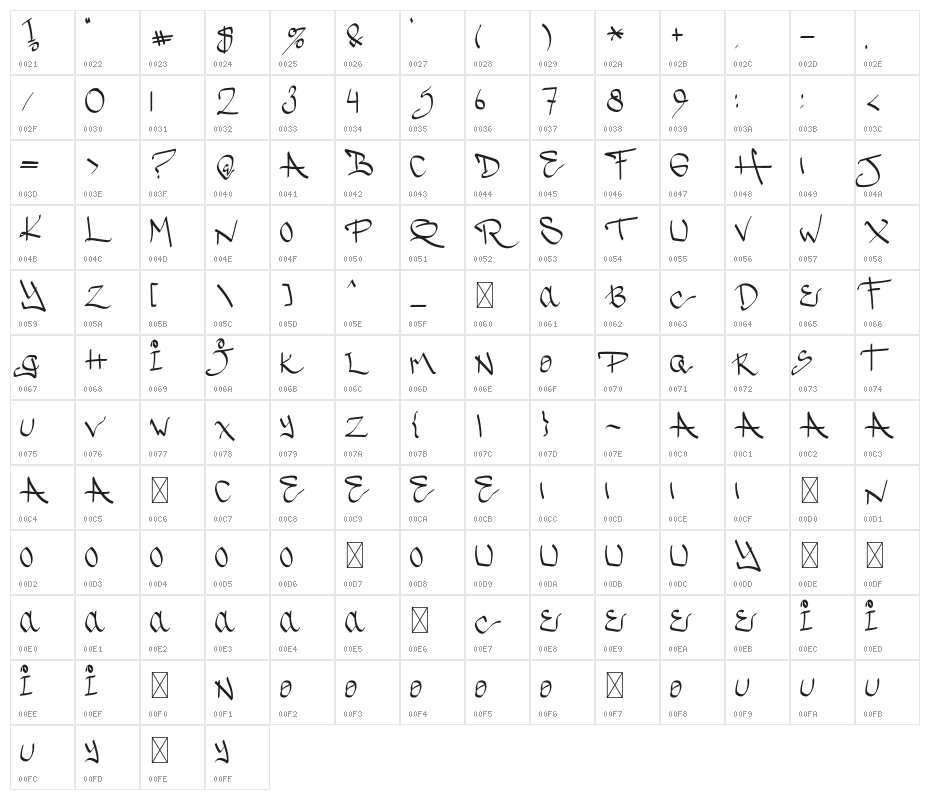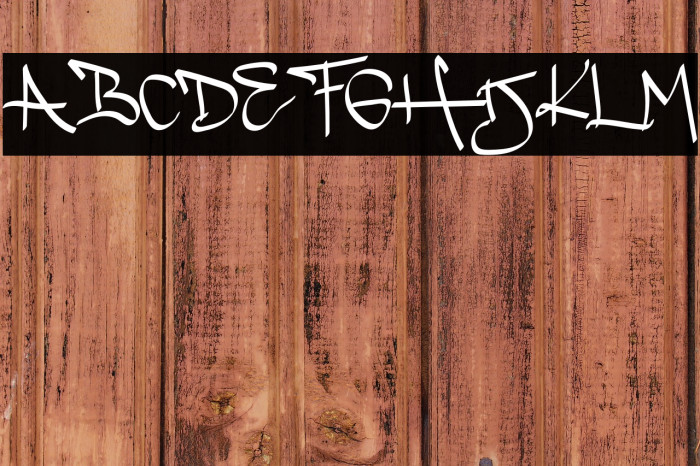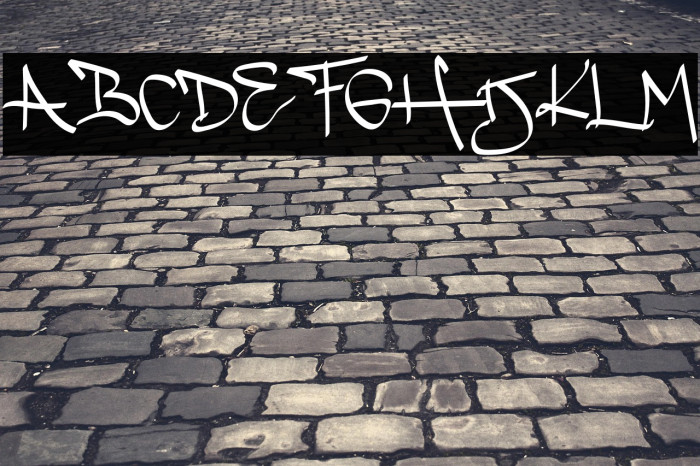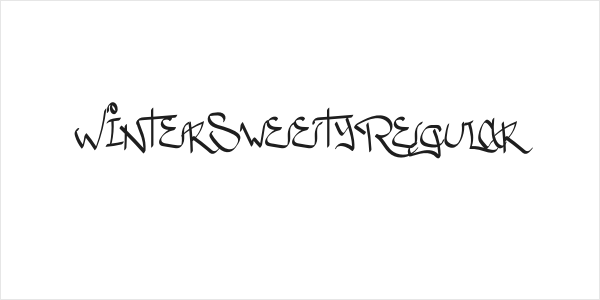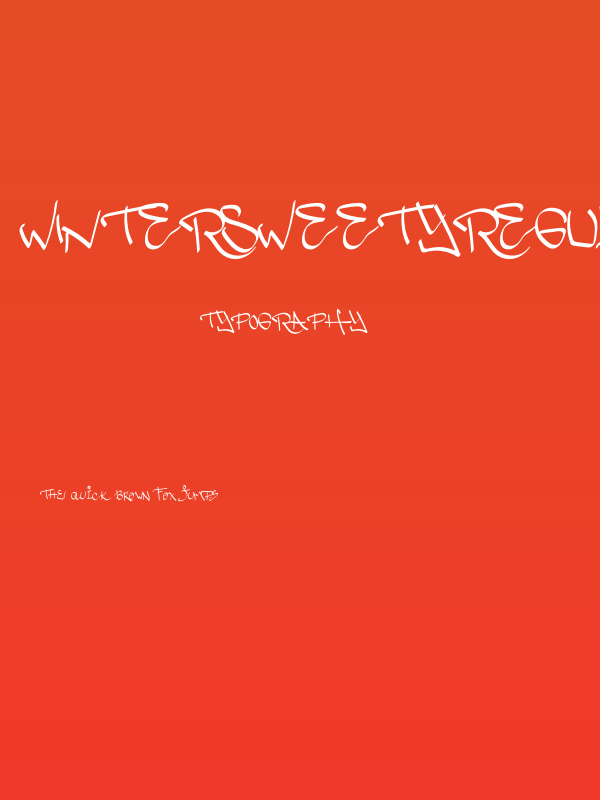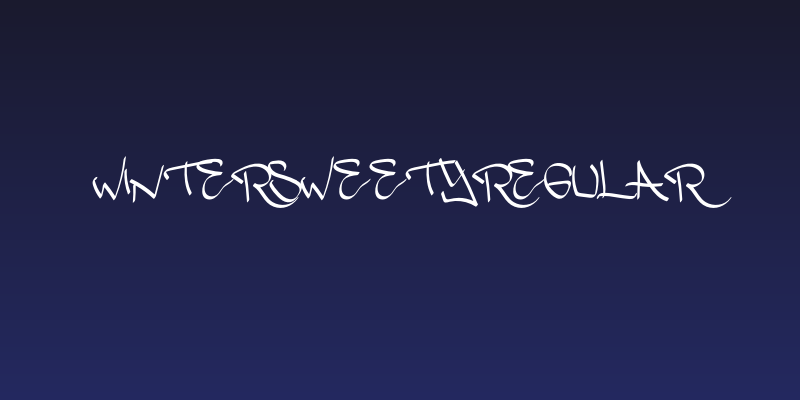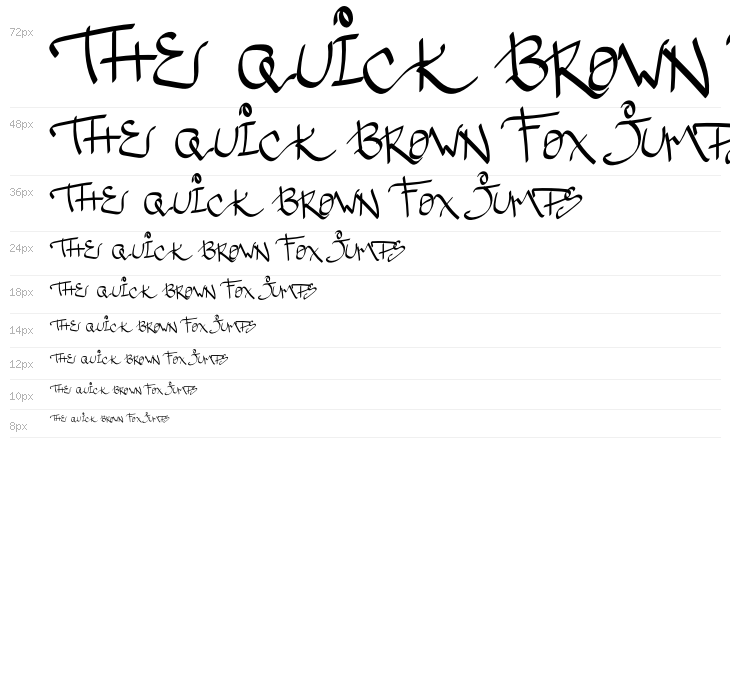
WinterSweetyRegular Font
WinterSweetyRegular Description
This font features a dynamic and expressive style with a handwritten appearance. The characters are fluid and slightly irregular, giving it a personal and artistic touch. The strokes vary in thickness, adding a sense of movement and energy. The uppercase and lowercase letters maintain a consistent style, while the numbers and special characters integrate seamlessly. The overall look is both modern and playful, making it suitable for creative projects that require a unique and engaging typeface.
| Overall Style | Modern, Artistic |
| Use Case | Logos, Invitations, Creative Posters |
| Proposed Projects | Ideal for artistic projects, personal branding, invitations, and creative posters. |